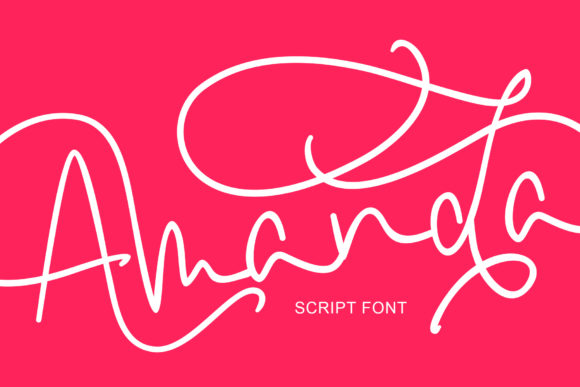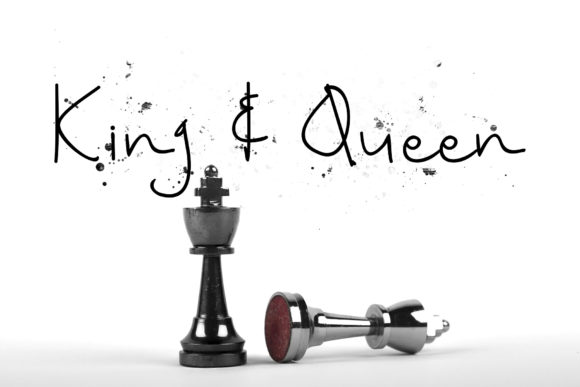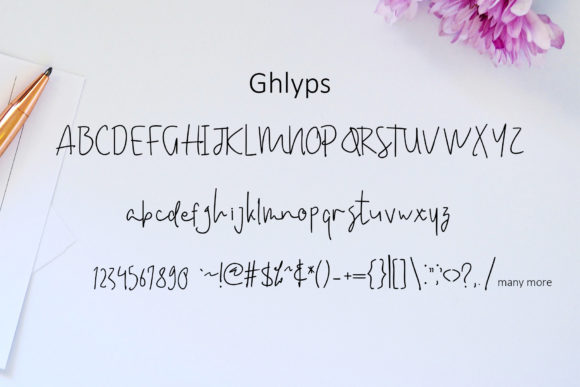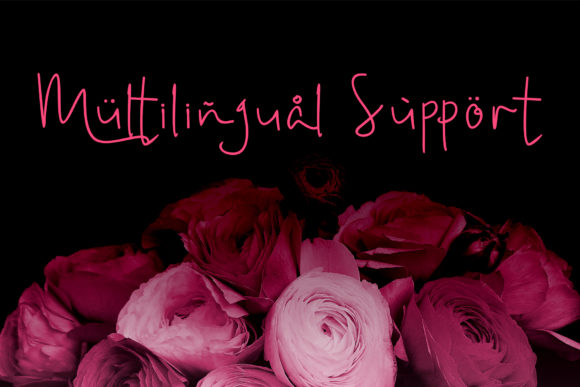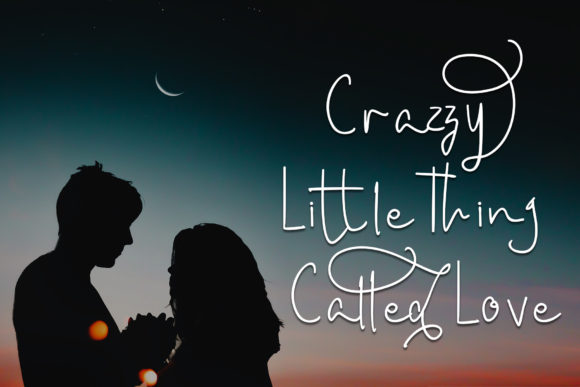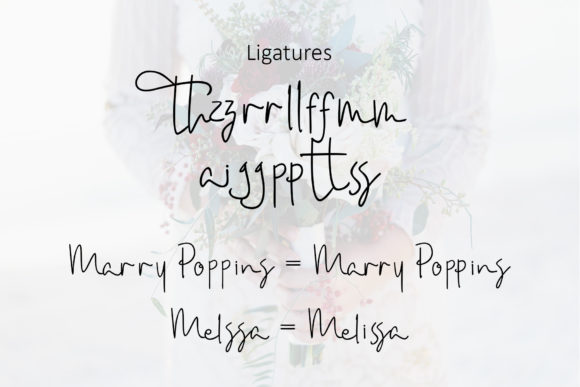
Adding a Touch of Elegance with the Amanda Script Font
Have you ever found yourself stuck in a design rut, searching for the perfect font to elevate your project? We’ve all been there – staring at a blank canvas, hoping to spark some creativity. For many designers, the solution lies in the subtle nuances of a well-crafted script font.
Enter the Amanda Script Font, a beautiful handwritten font designed to add a luxurious touch to your designs. Its stylish and classy look makes it perfect for creating invitations, branding materials, and even digital graphics. Whether you’re a seasoned pro or a design newbie, the Amanda Script Font is an invaluable asset in your creative toolkit.
With its versatility and sophistication, the Amanda Script Font is a must-have for designers looking to add a touch of elegance to their work. In this article, we’ll delve into the world of this stunning font and explore its many uses, making it an essential addition to any designer’s library.
Amanda Script Font Key Features
- Font Family: Amanda Script, Amanda Script Italic, Amanda Script Bold, Amanda Script Bold Italic
- Unique Characteristics: Distressed, vintage, and hand-drawn feel; perfect for creative, artistic, or emotional designs
Amanda Script Font Review
At first glance, Amanda Script Font seems like a charming addition to any design project. ✨ The delicate, cursive lines evoke a sense of elegance and sophistication, making it perfect for wedding invitations, stationery, or other high-end branding materials. ✨ The font’s unique, flowing style also adds a touch of whimsy and playfulness, making it suitable for children’s books or creative projects.
- The font’s range of weights and styles provides ample options for designers to experiment and customize their work.
- The Amanda Script Font is highly legible, even at smaller sizes, making it a great choice for body text or headings.
- The font’s versatility allows it to be paired with a wide range of other fonts, from modern sans-serifs to classic serif fonts.
However, there are some limitations to consider: ⚠️ The font may not be the best choice for projects requiring a bold, attention-grabbing font. Additionally, the font’s delicate lines can be prone to distortion at larger sizes or when used in complex layouts.
Overall, Amanda Script Font is a solid addition to any designer’s toolkit. While it may not be the most versatile font, it excels in its niche and can add a touch of sophistication and elegance to a wide range of projects.
Amanda Script Font is perfect for adding a touch of elegance and sophistication to your designs. Use it for:
– Luxury brand logos and marketing materials
– Fine art and creative projects
– Any design where you want to add a touch of whimsy and flair.